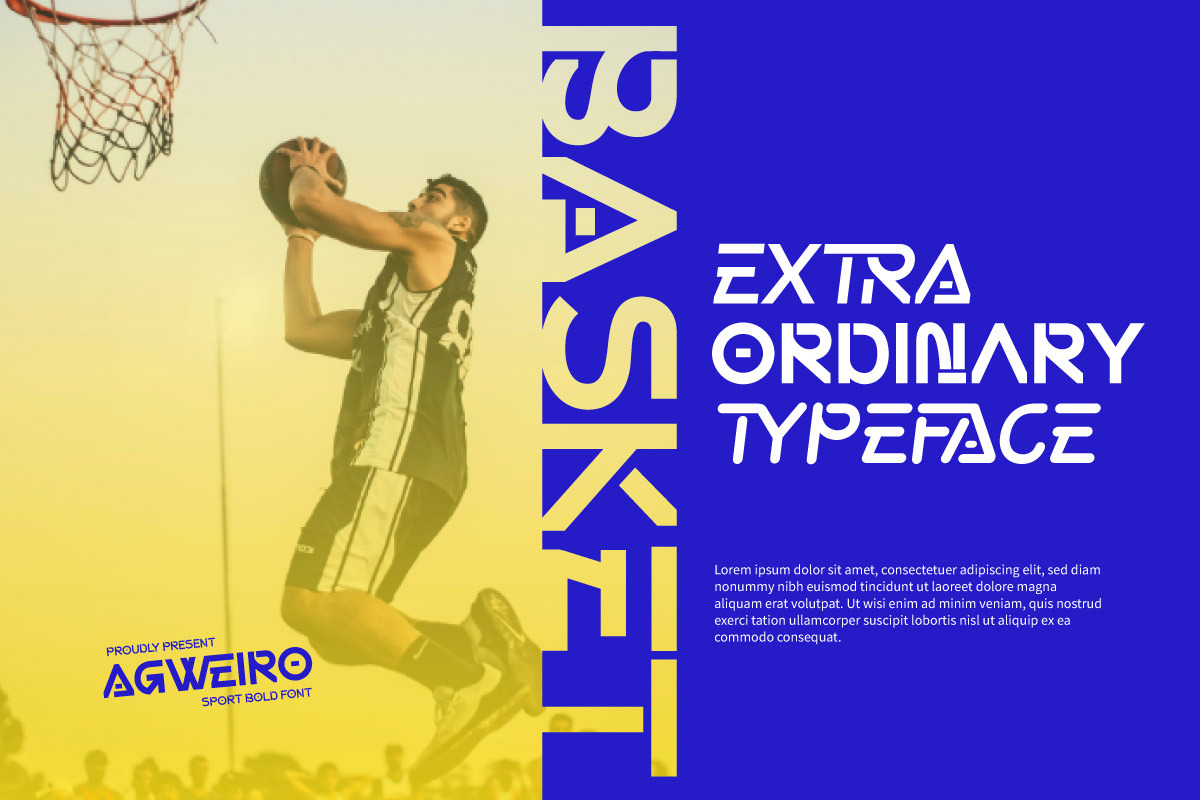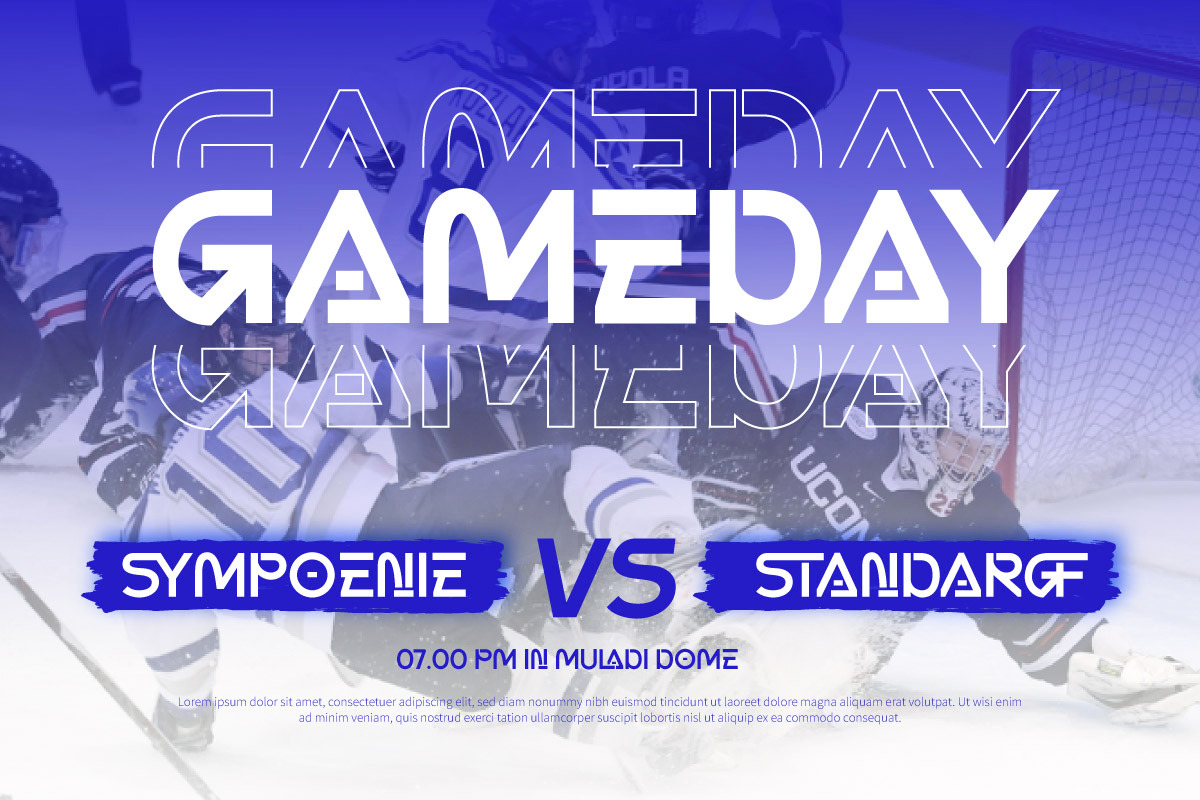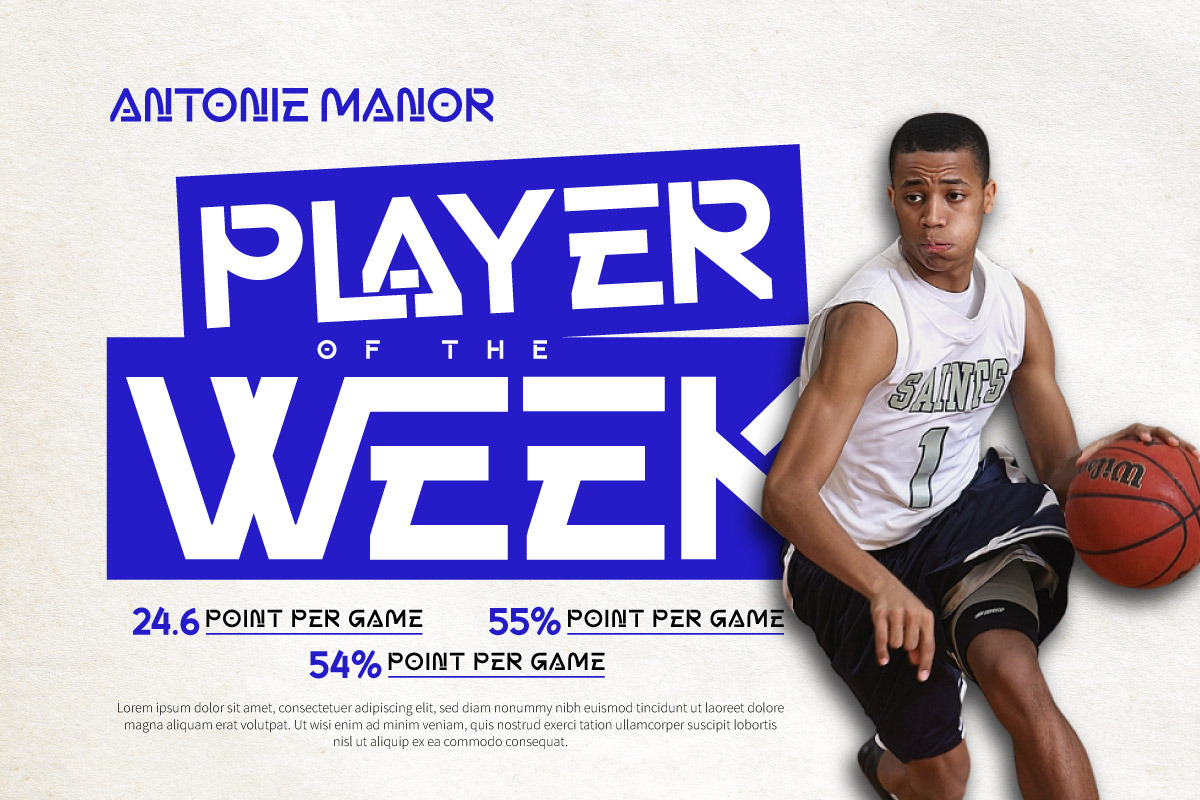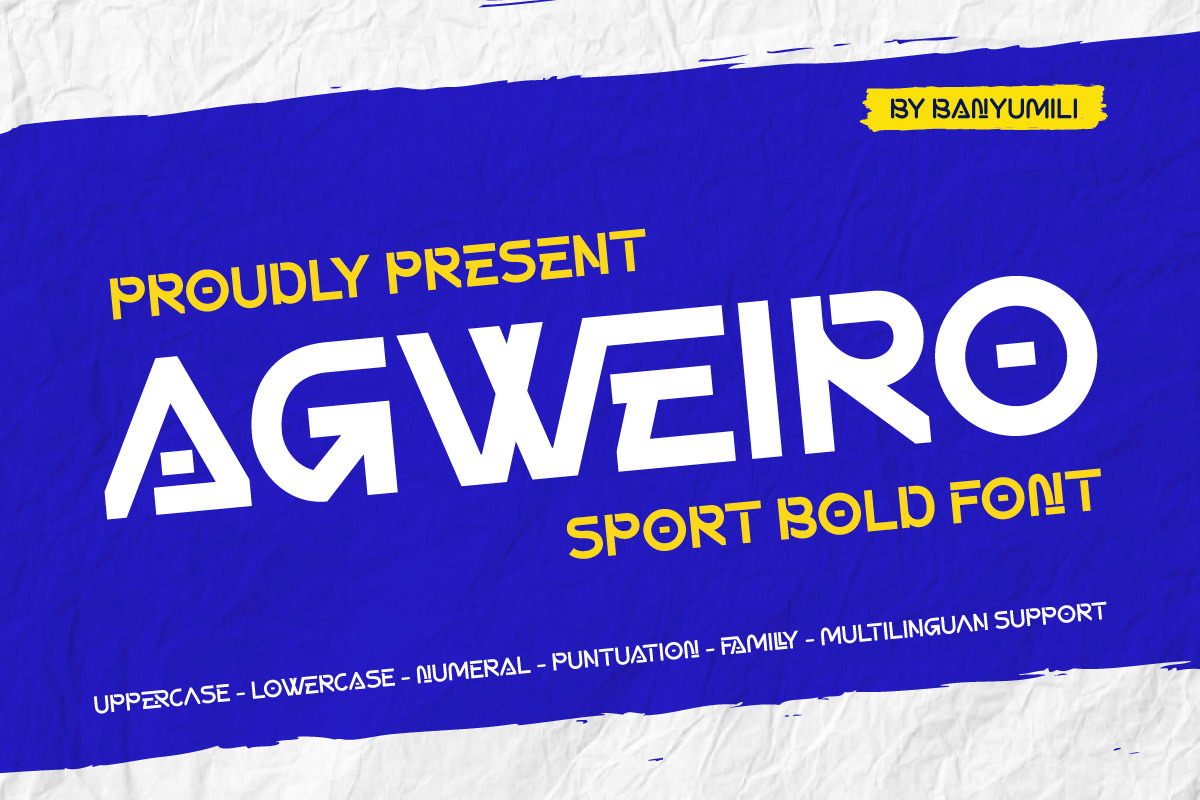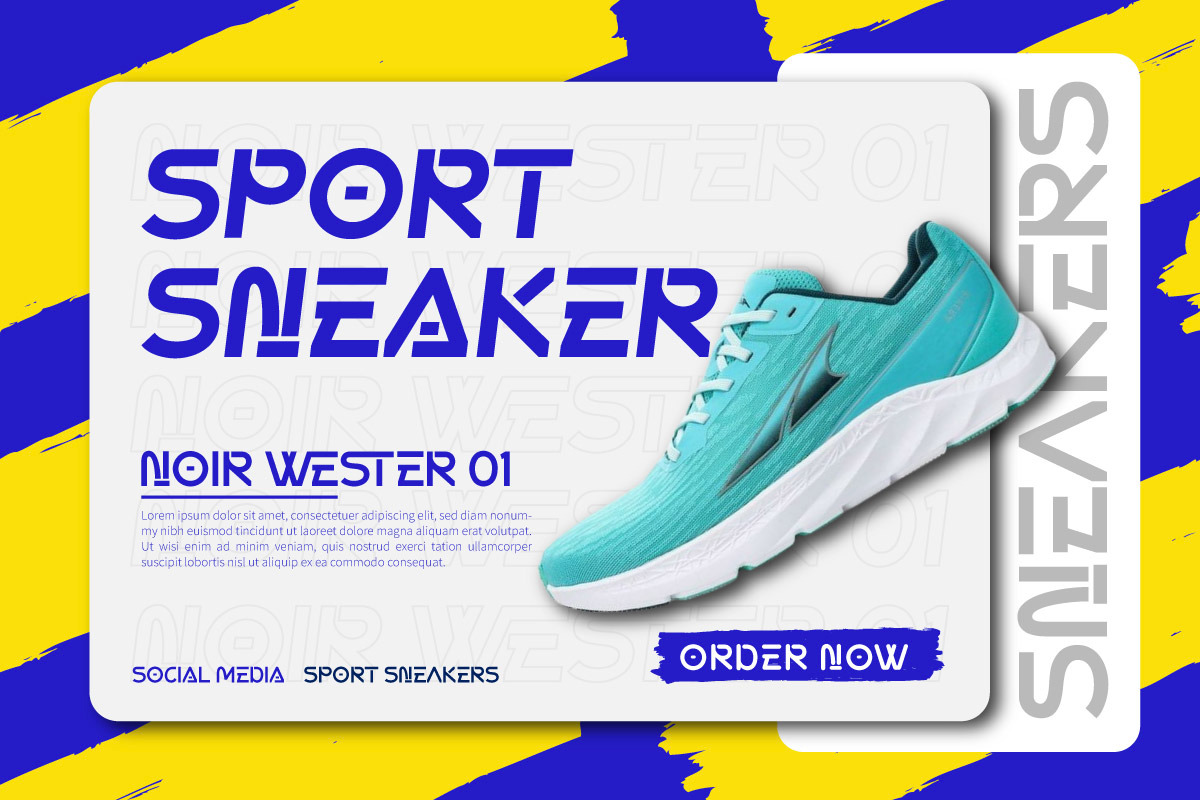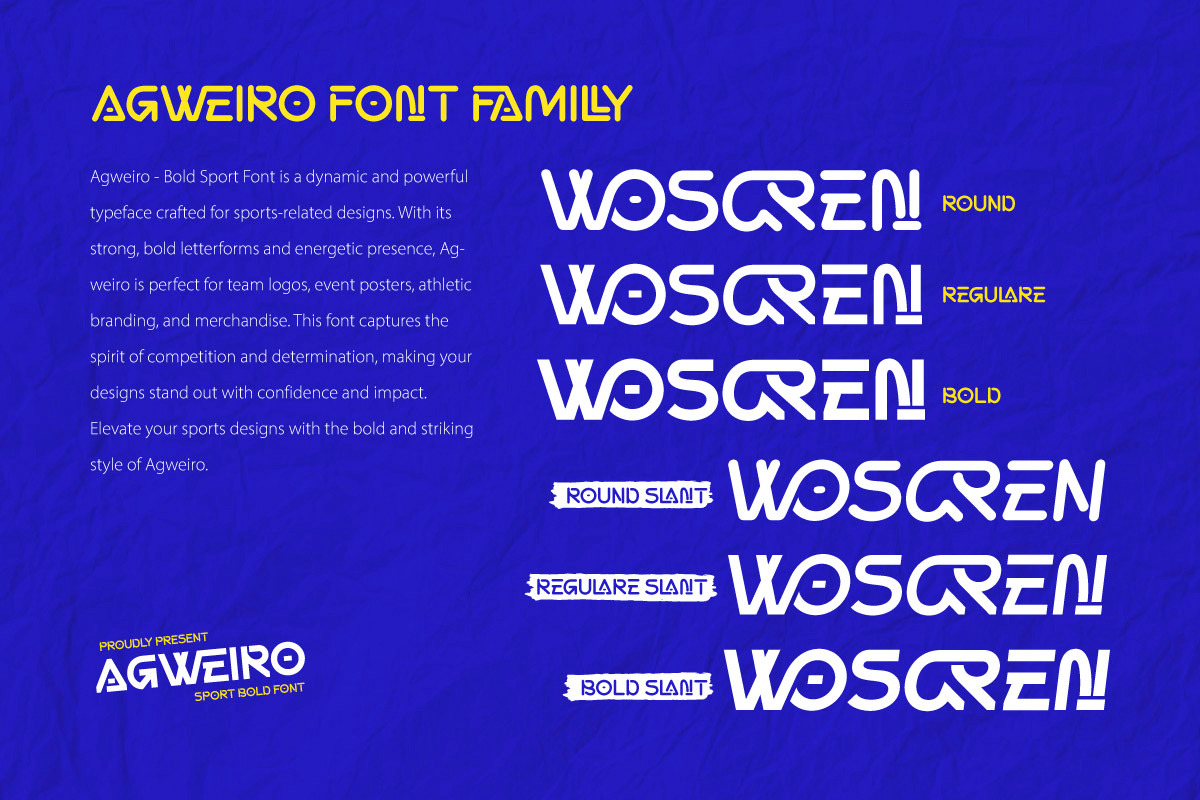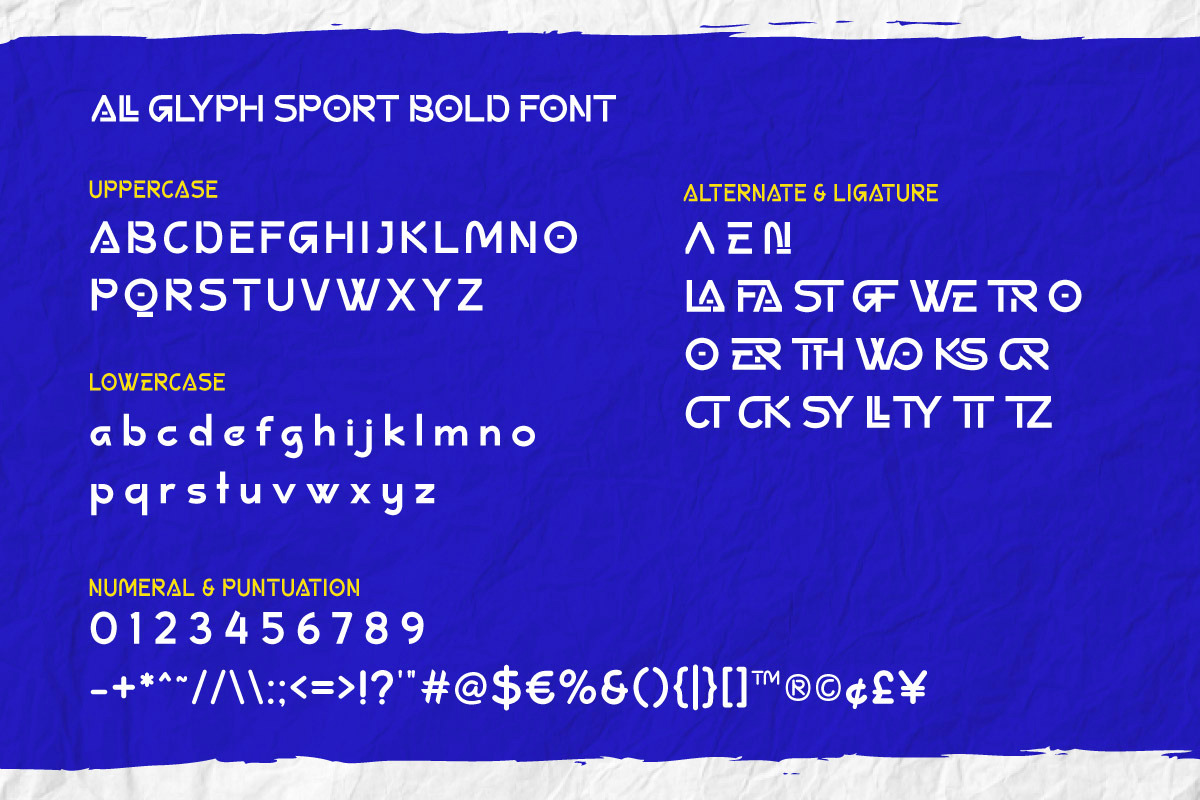
Agweiro- Bold Sport Font
Agweiro - Bold Sport Font is a dynamic and strong typeface made for sports-related designs. With bold, angular letterforms, this font is perfect for team logos and sports posters. The font includes style alternatives and multilingual support. This font captures the spirit of competition and determination, making your designs stand out with confidence and impact.
Elevate your sports designs with Agweiro's bold and bold style.
- Fonts include Multilingual: Support for 85 languages. Afrikaans, Albanian, Asu, Basque, Bemba, Bena, Breton, Catalan, Chiga, Cornish, Croatian, Czech, Danish, Dutch, Embu, English, Esperanto, Estonian, Filipino, Finnish, French, Friulian, Galician, Gusii, Hungarian, Indonesian, Irish, Italian, Kabuverdianu, Kalenjin, Kamba, Kikuyu, Kinyarwanda, Latvian, Lithuanian, Lower, Sorbian, Luo, Luxembourgish, Luyia, Machame, Makhuwa-Meetto, Makonde, Malagasy, Maltese, Manx, Meru, Morisyen, North, Ndebele, Norwegian Bokmål, Norwegian Nynorsk, Nyankole, Oromo, Polish, Portuguese, Quechua, Romanian, Romansh, Rombo, Rundi, Rwa, Samburu, Sango, Sangu, Scottish, Gaelic, Sena, Serbian, Shambala, Shona, Slovak, Slovenian, Soga, Somali, Spanish, Swahili, Swedish, Swiss German, Taita, Teso, Turkish, Upper Sorbian, Uzbek (Latin), Volapük, Vunjo, Walser, Zulu.t